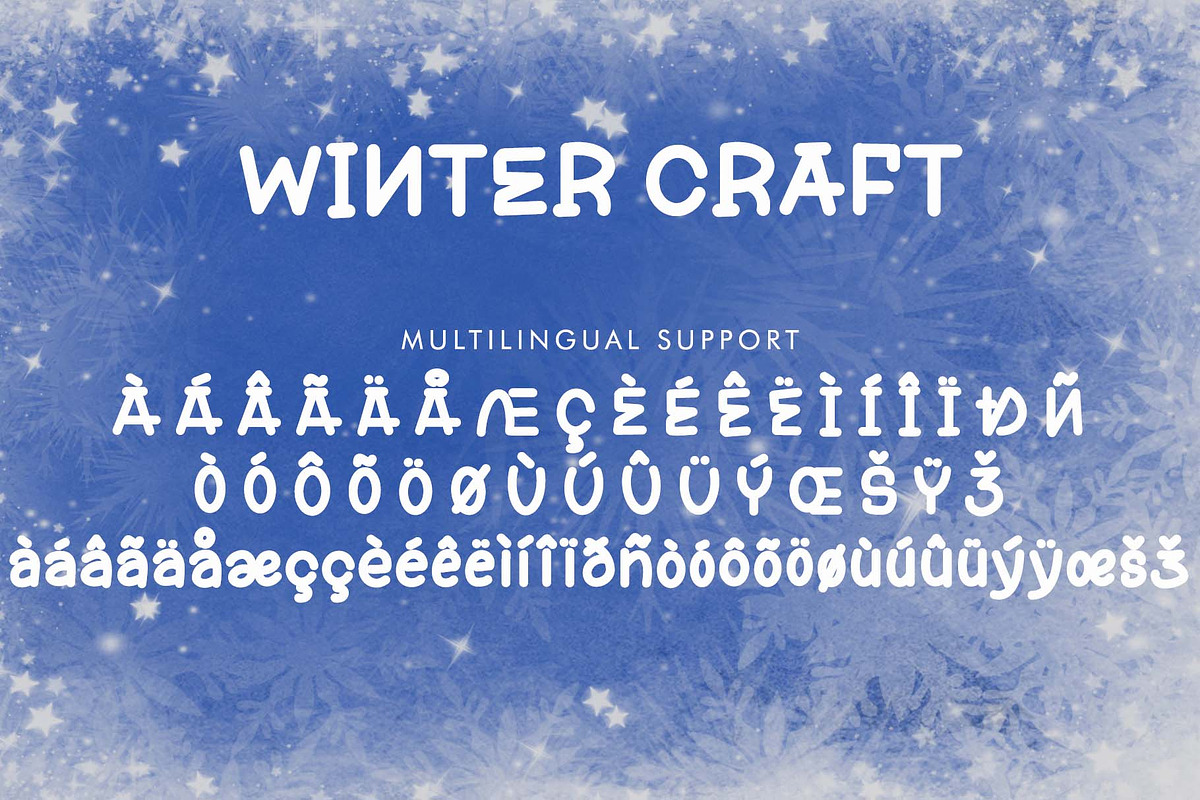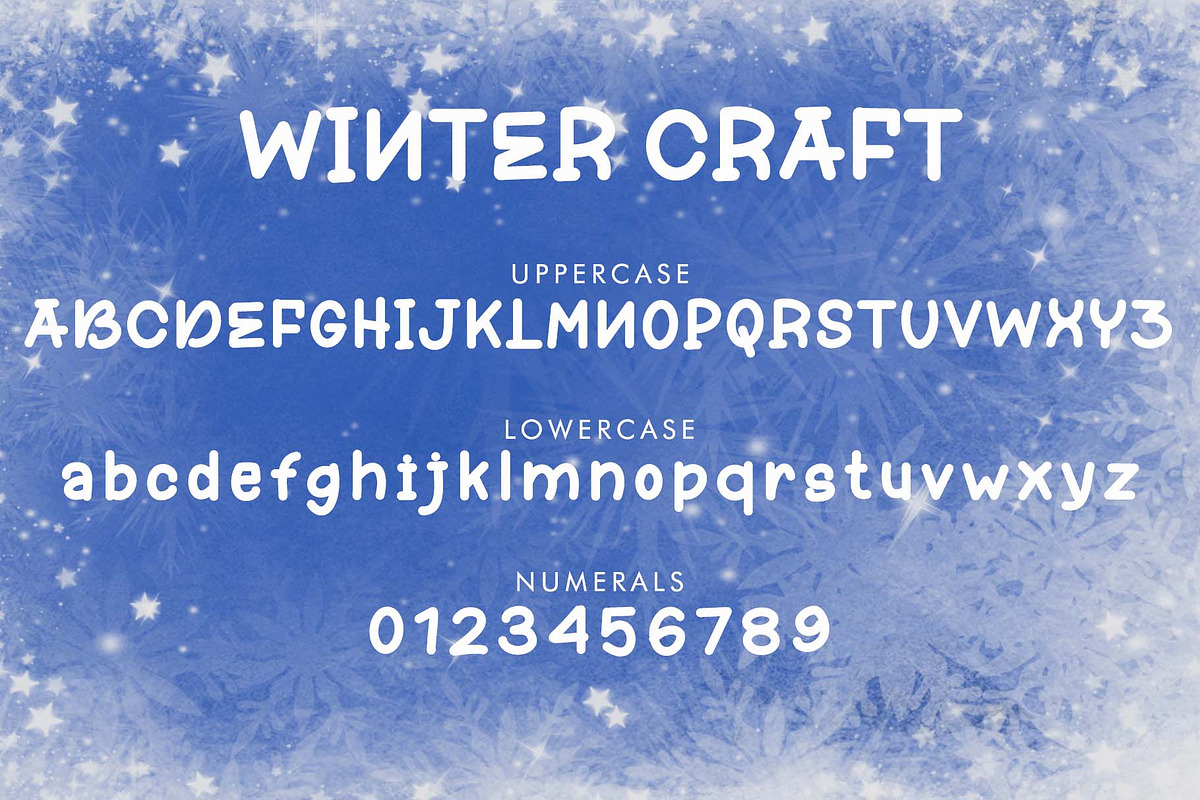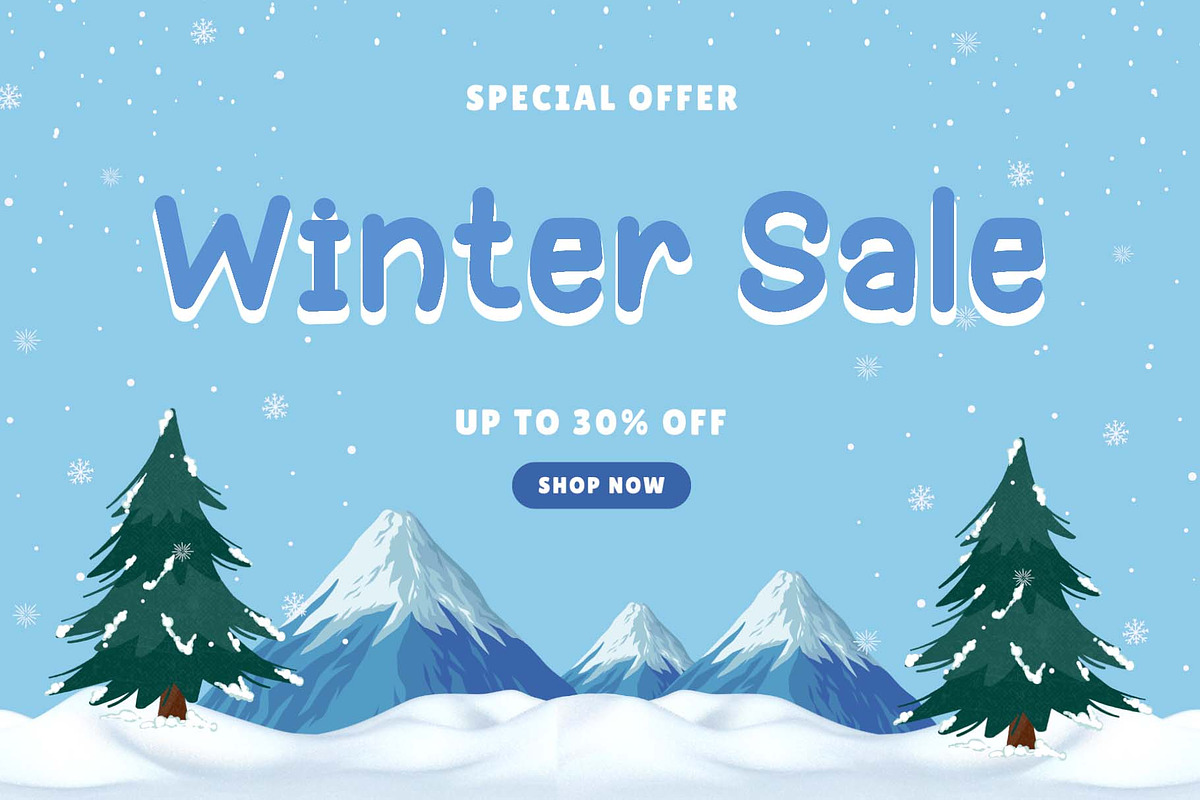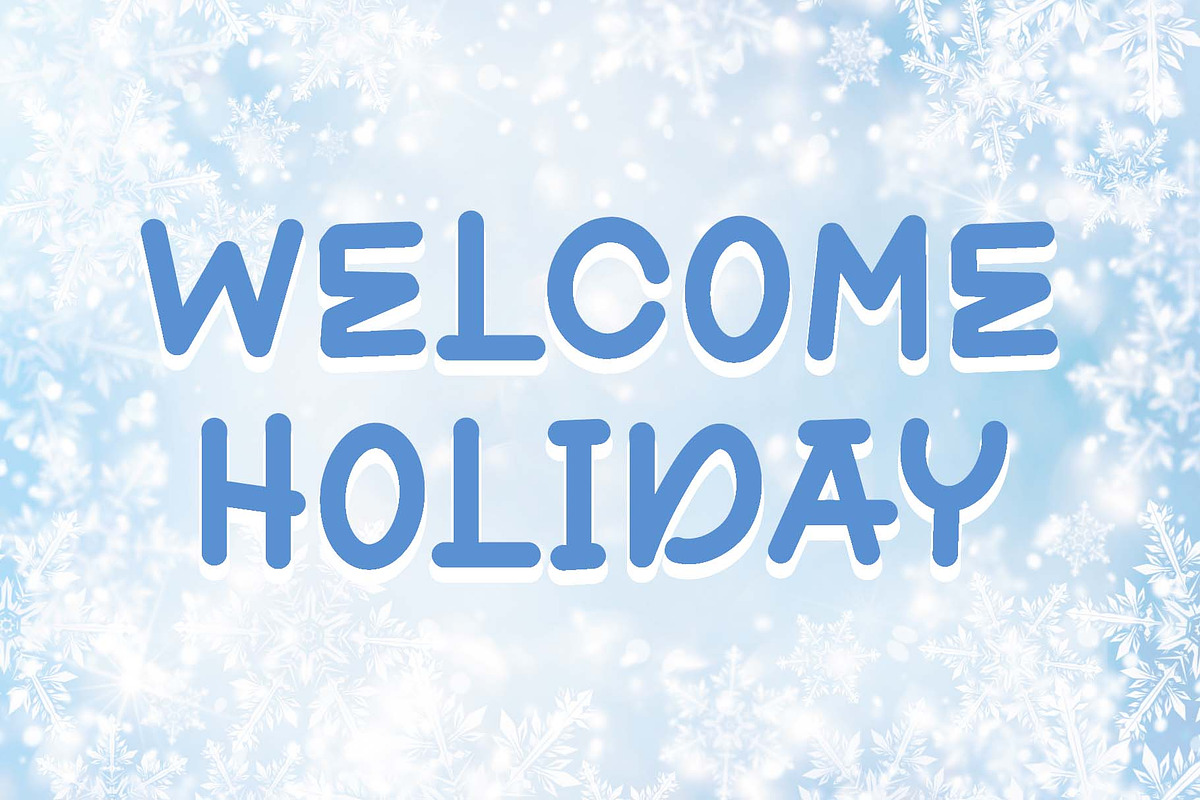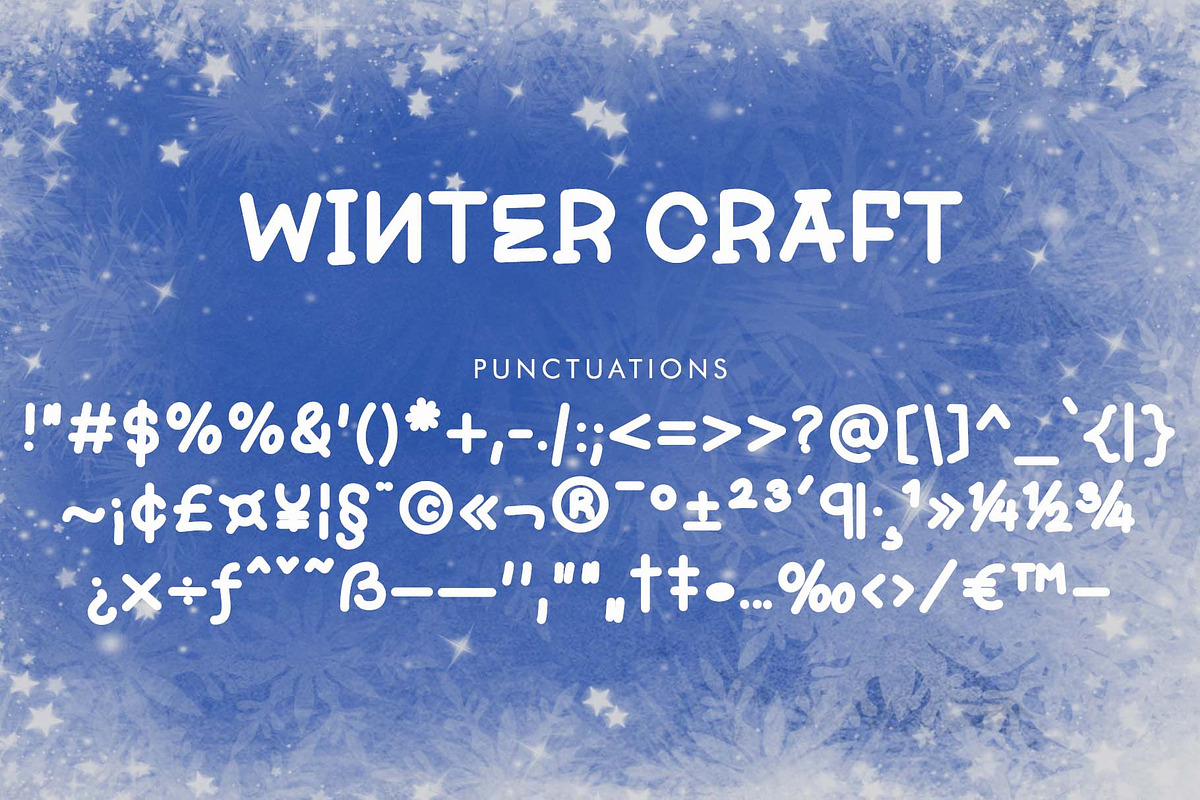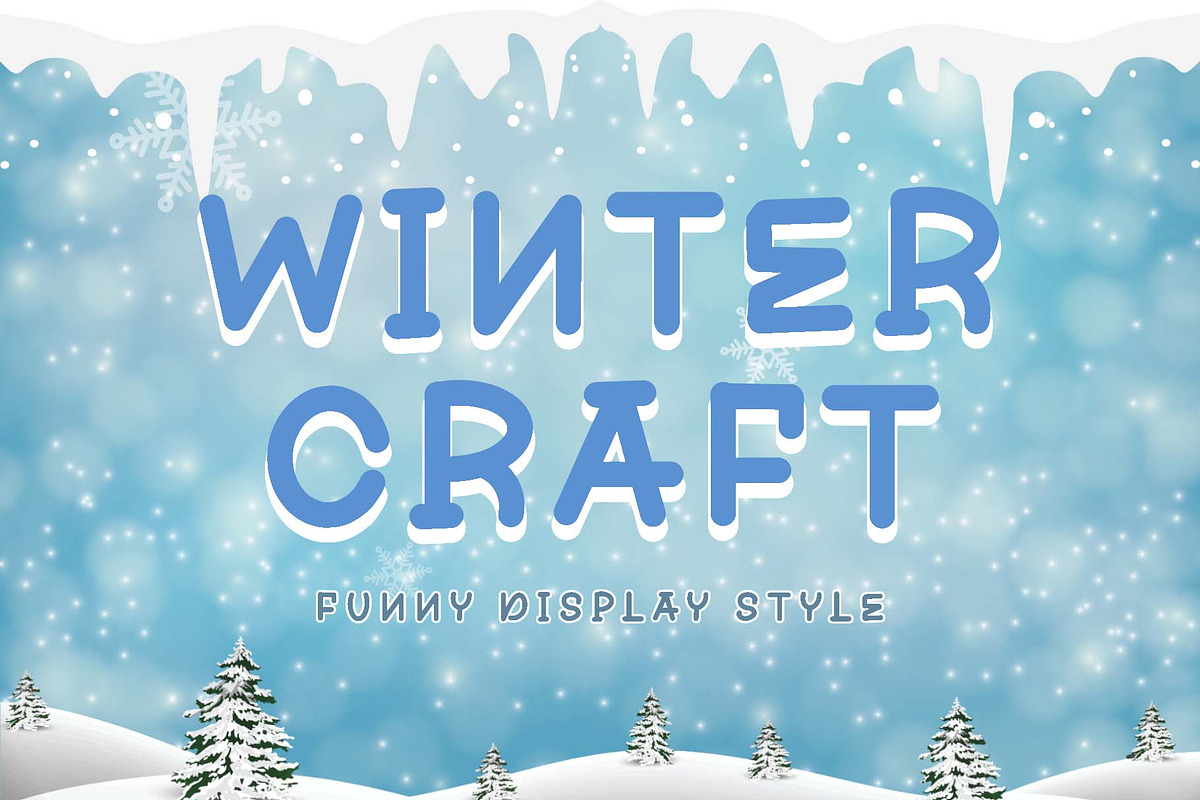
Winter Craft
"Winter Craft" is a unique and elegant display font. It features uppercase and lowercase letters, numerals, punctuation, and multilingual support. It's perfect for Christmas, banners, posters, print, branding, logos, comics, Halloween, winter, holiday, summer, weddings, engagements, spring, invitations, vacations, comics, Procreate, fall, autumn, and more.